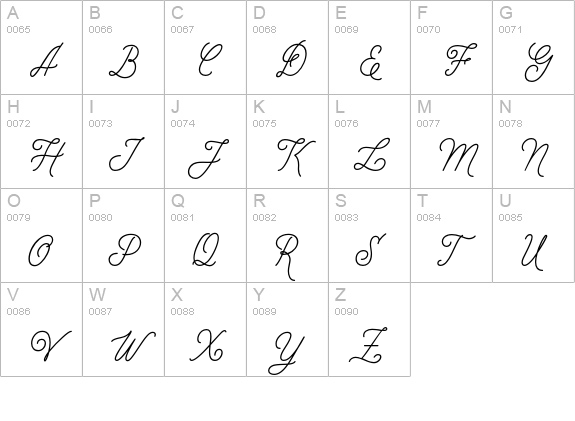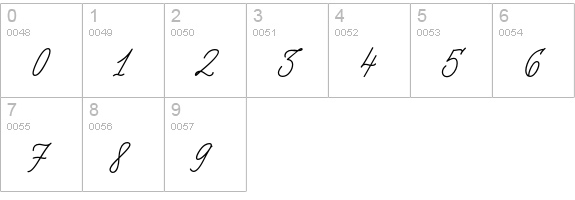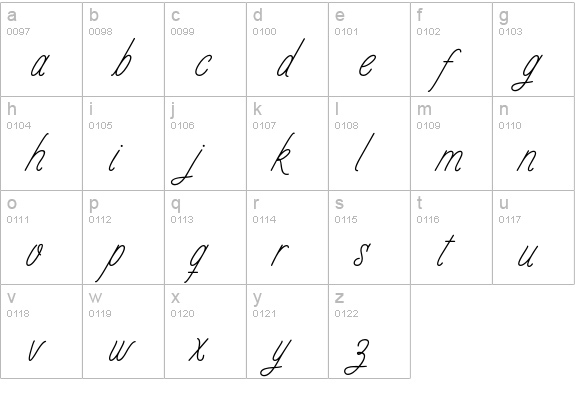
DistilleryScript Font Details
DistilleryScript is a stunning and elegant handwritten font that exudes sophistication and charm. Its flowing cursive style is perfect for adding a touch of class to any project, from wedding invitations to branding materials. The font features smooth lines and graceful curves that make it a versatile choice for both print and digital designs. What sets DistilleryScript apart is not only its timeless appeal but also the fact that it is available for free download at FontsMarket.com. This means that you can easily incorporate this beautiful font into your work without any cost, making it a valuable resource for designers, creatives, and anyone looking to elevate their projects with a touch of luxury. Whether you're designing a logo, creating a poster, or crafting a greeting card, DistilleryScript is sure to make a lasting impression. Download it for free today and add a touch of elegance to your designs.